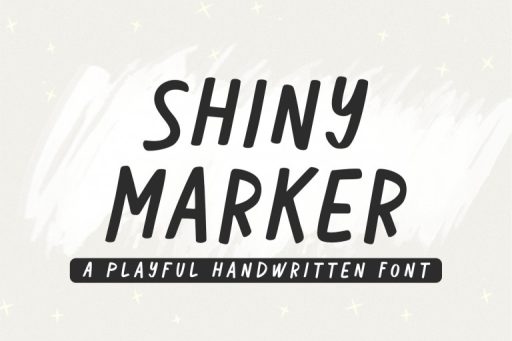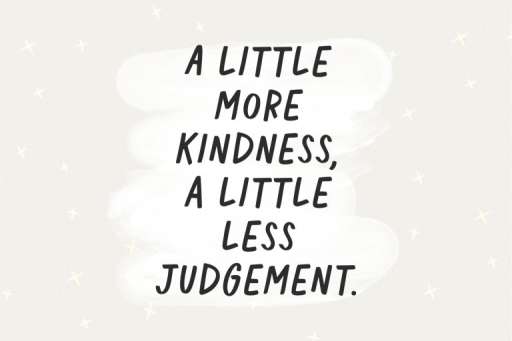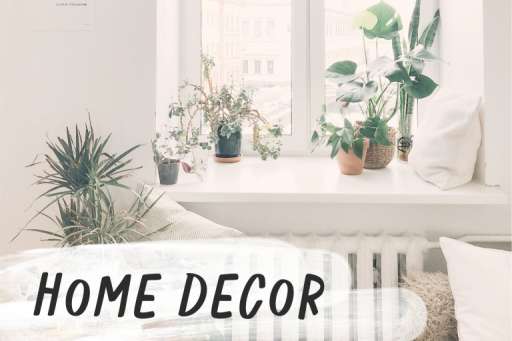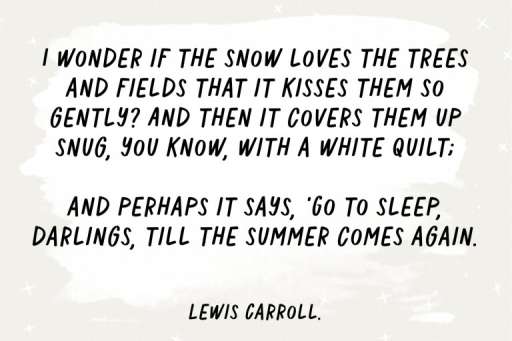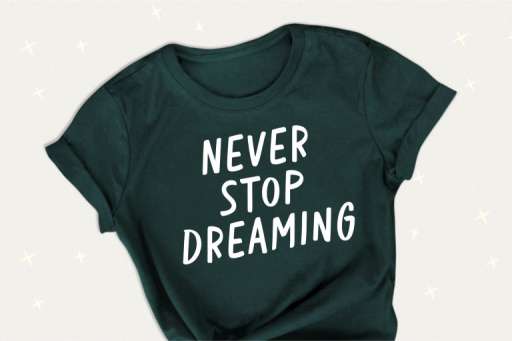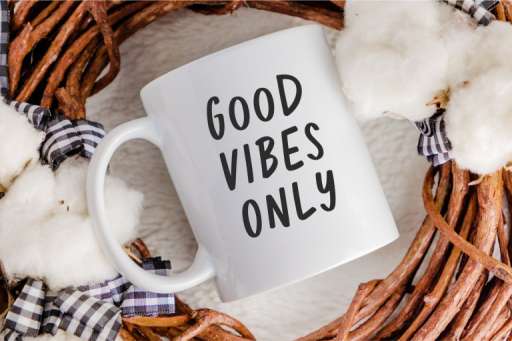
Shiny Marker - Marker Handwritten Font from Jimtype Studio
Shiny Marker is a playful marker font. It comes with unique lower and uppercase plus numbers, punctuation & multilingual letters. This font is perfect for stellar quotes, handwritten notes, sweet greeting cards, and of course stand-out branding.